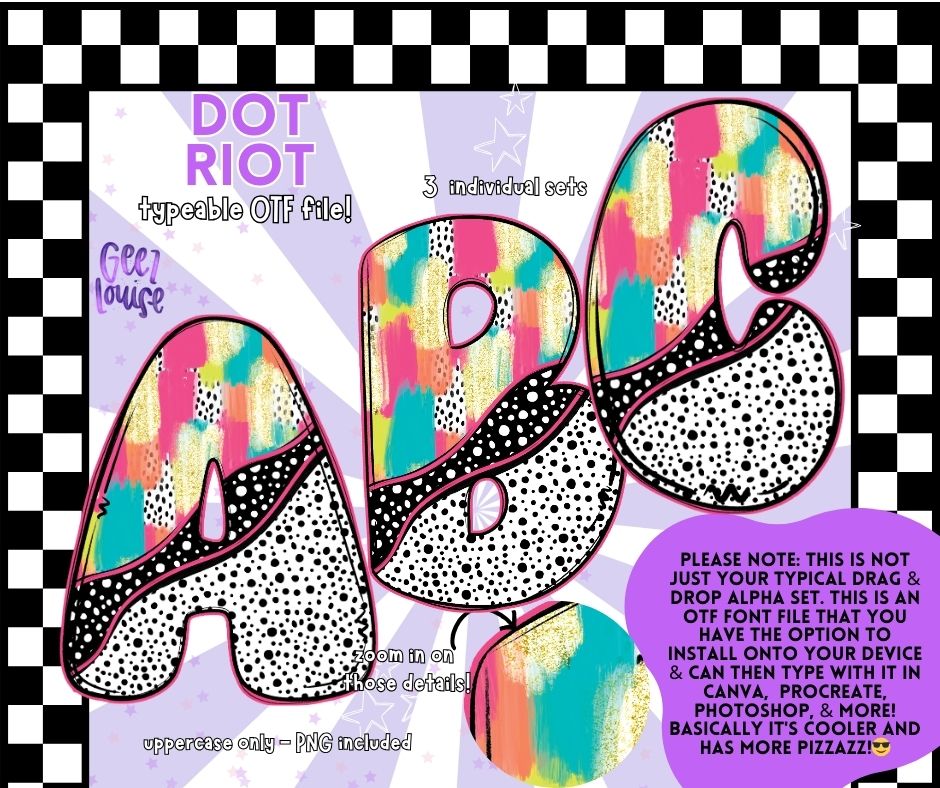
Dot Riot OTF Font Set | Uppercase Alphabet with PNGs – Bold, Funky, & Typeable
🎉 Let your designs riot with color, texture, and serious attitude! The Dot Riot OTF Alpha Set is a wild mashup of neon paint strokes, polka dot chaos, and glittery glam. This set includes 3 individual typeable OTF fonts—each bursting with energy and dripping with detail.
This one’s for the loud, the bold, and the rule-breakers. And yes, it's uppercase only for maximum impact.
Whether you're designing tees, tumblers, or statement graphics, Dot Riot brings the party.